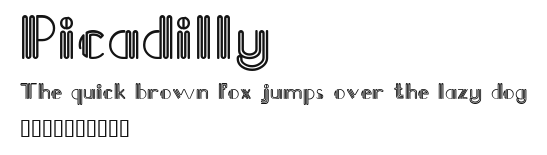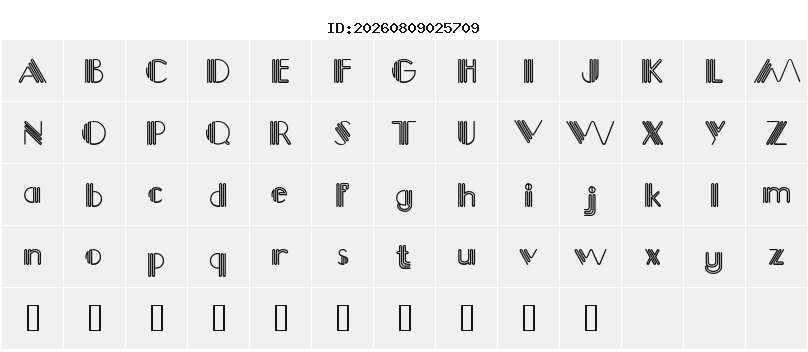
• Font Name: Picadilly
Picadilly.ttf is a modern, elegant sans-serif font designed for ultimate readability and visual harmony. Perfect for branding, headlines, web design, and print materials.